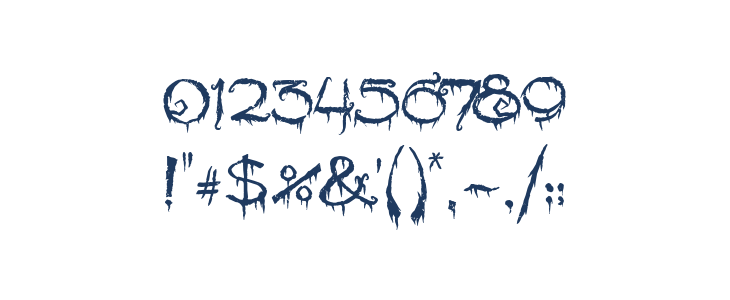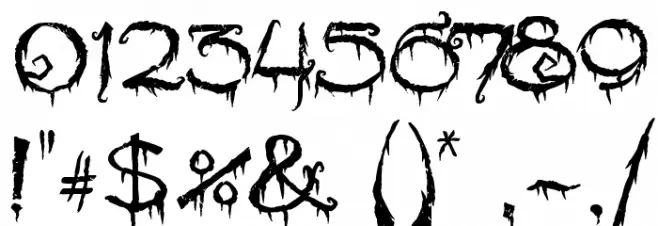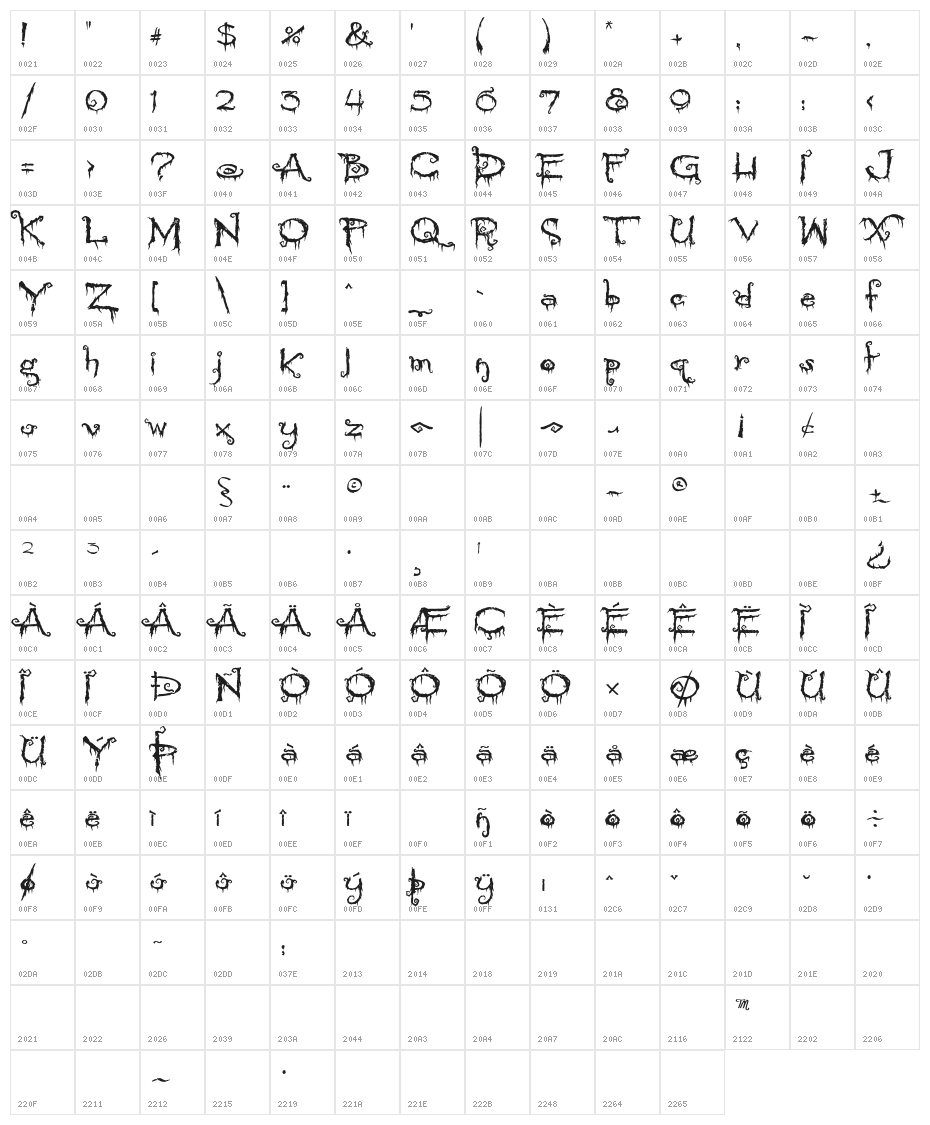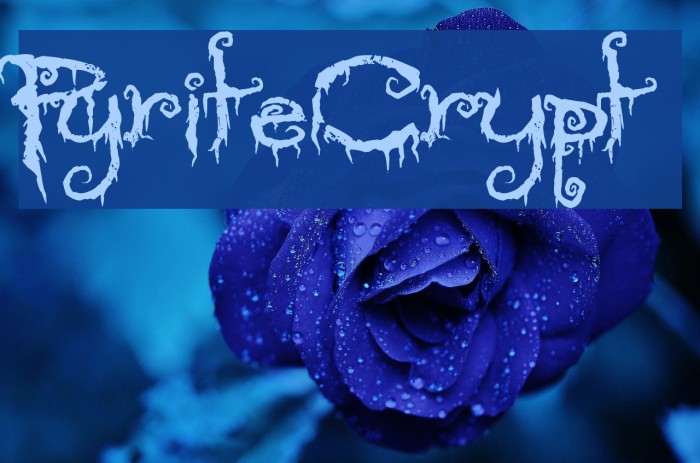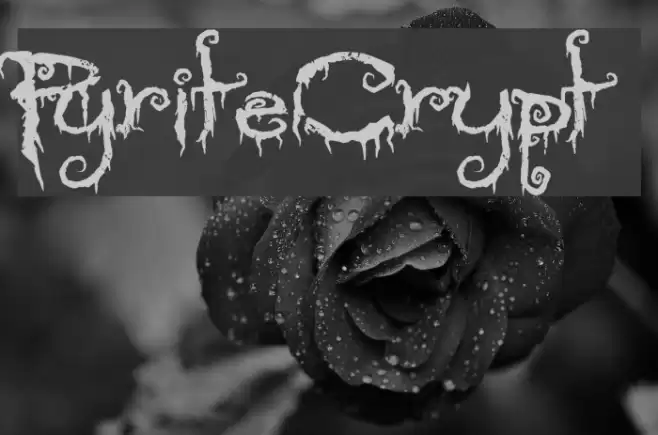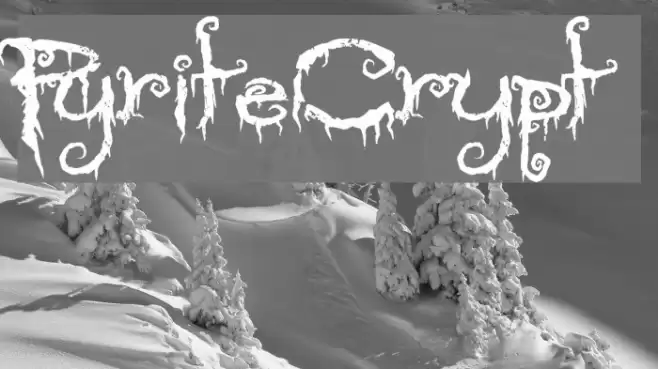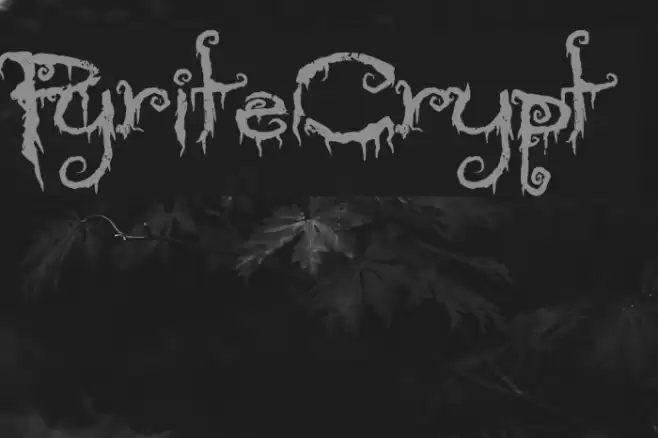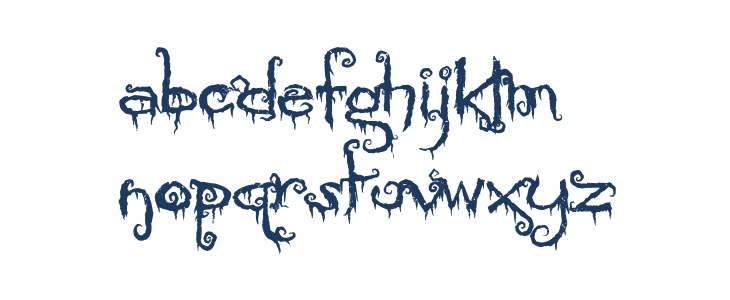
PyriteCrypt Font
PyriteCrypt Description
This font features a highly decorative and gothic style, characterized by its dripping, jagged edges that give it a haunting and eerie appearance. The uppercase and lowercase letters maintain a consistent theme of sharp, thorn-like extensions, creating a sense of movement and chaos. Numbers and special characters follow the same aesthetic, with swirling and pointed elements that enhance the font's dramatic flair. The overall design is reminiscent of horror or fantasy themes, making it ideal for projects that require a bold and unsettling visual impact.
| Overall Style | Gothic, Decorative |
| Proposed Projects | Ideal for horror-themed posters, Halloween invitations, fantasy book covers, and video game titles. |